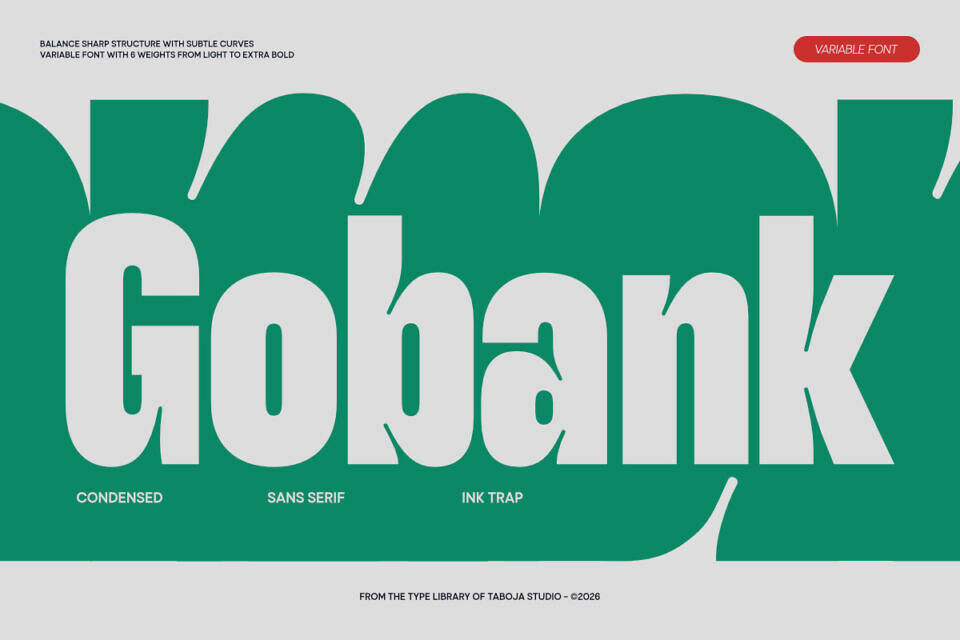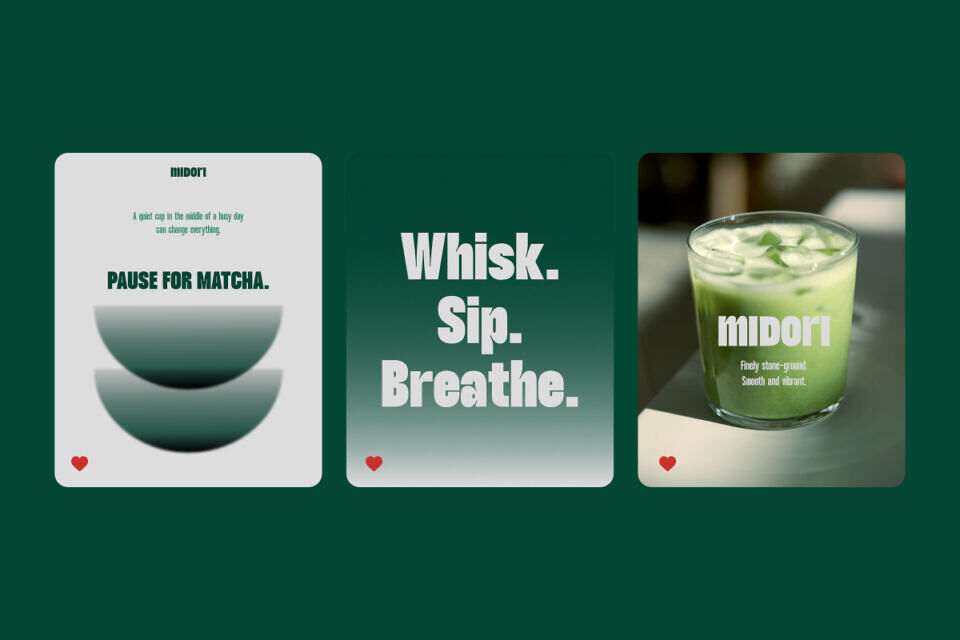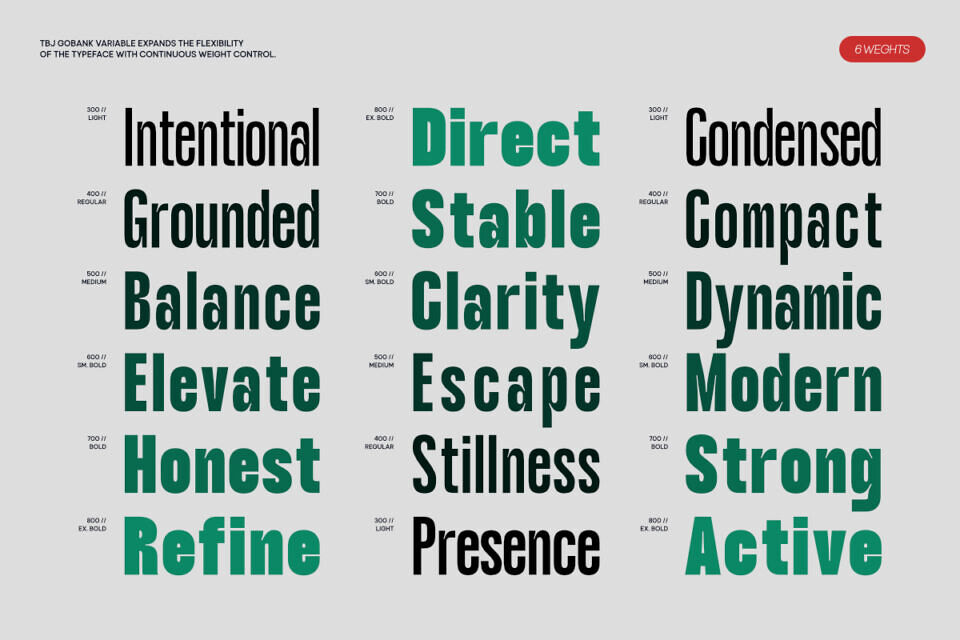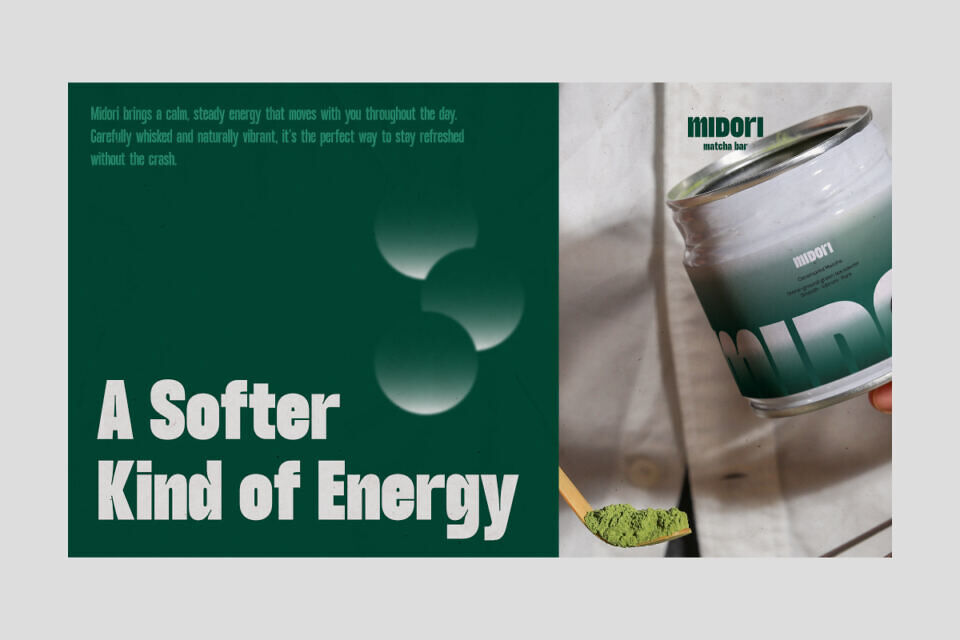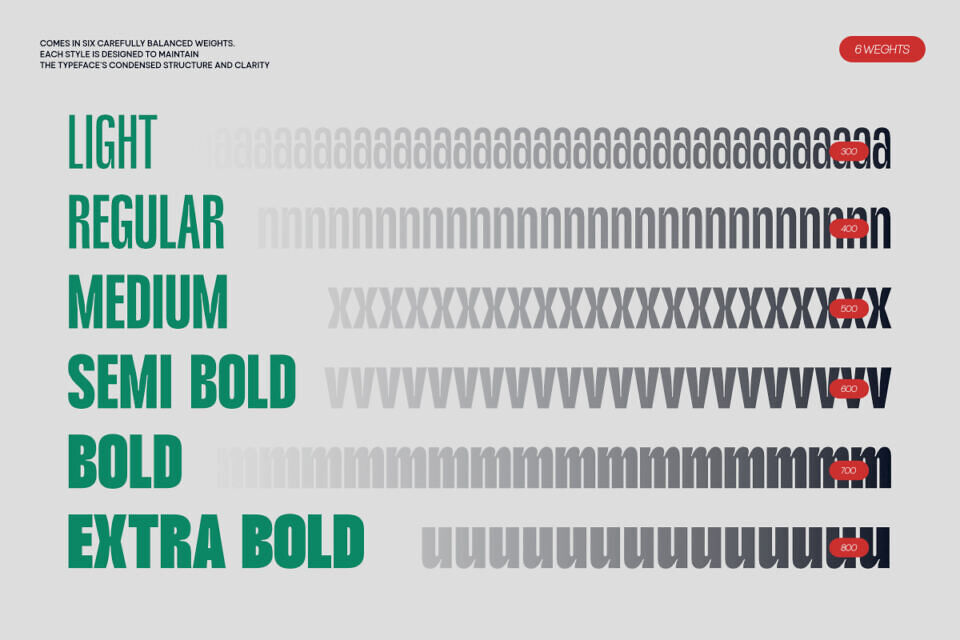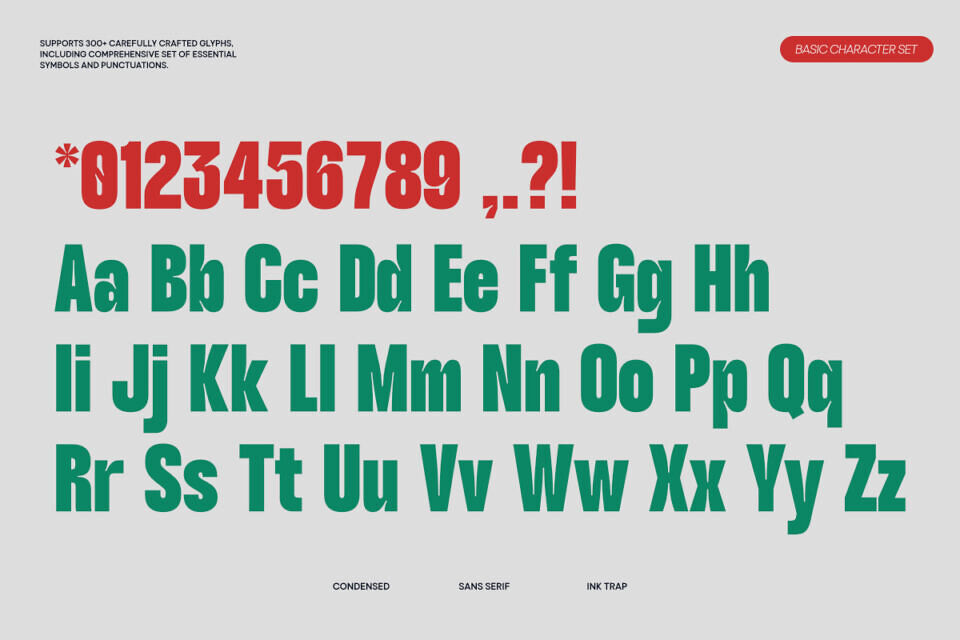
TBJ Gobank is a modern condensed sans serif typeface featuring distinctive rounded inktrap details that enhance both character and performance. Built with strong vertical proportions and tight spacing, Gobank delivers a bold, compact presence while maintaining clarity and readability across sizes.
Designed with a versatile weight range from Light to Extra Bold, TBJ Gobank transitions smoothly from clean editorial typography to dominant display statements. It blends modern industrial strength with contemporary detailing, making it perfect for sports branding, urban visuals, corporate identities, merchandise, and high-impact social media graphics.